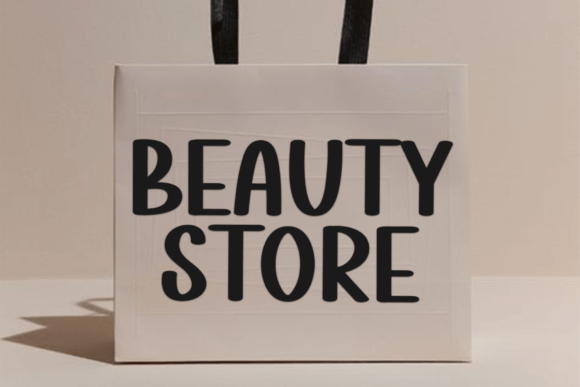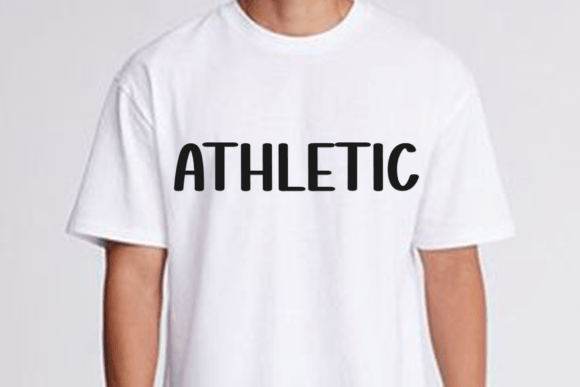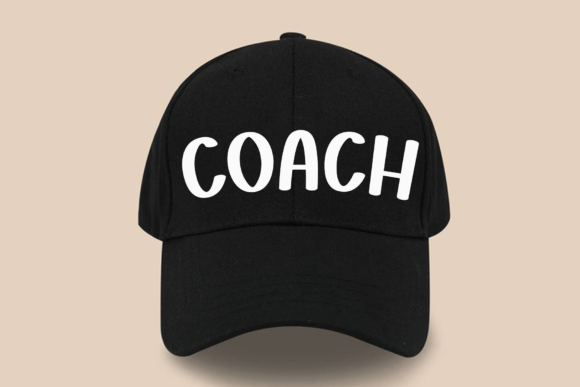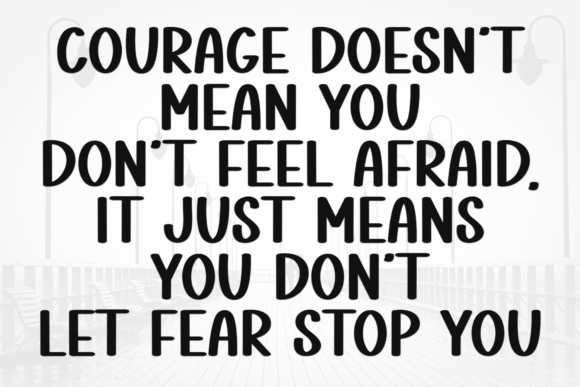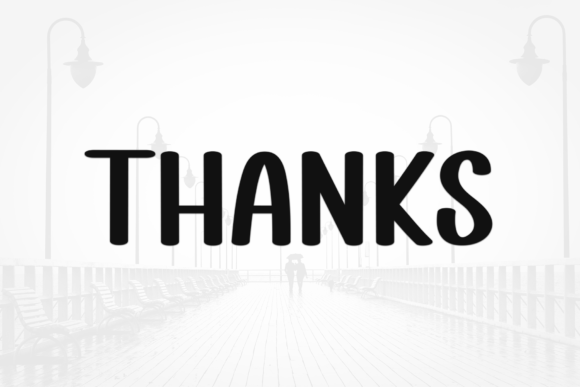
Introduction to Simple Charming Font
Do you remember the thrill of stumbling upon that perfect font that elevates your design project from good to great? It’s a feeling that never gets old, and for designers, it’s a game-changer. Today, we’re excited to share with you a treasure that’s sure to become a staple in your design arsenal: the Simple Charming Font.
This charming display font exudes freshness and casual elegance, making it an ideal choice for a wide range of creative projects. From branding and invitations to social media graphics, Simple Charming Font adds a touch of warmth and personality that’s hard to resist. Whether you’re a seasoned designer or just starting out, this high-quality font is a valuable addition to your design resource library.
Imagine having a go-to font that’s both stylish and versatile, perfect for any design project that requires a little extra charm. With its fluid strokes and organic lines, Simple Charming Font is sure to impress, and the best part? You can download it for free with a transparent background, making it easy to integrate into your next creative project.
Key Features of Simple Charming Font
- Unique, hand-drawn style with a transparent background, perfect for designers looking for a distinctive look.
- Simple Charming Font is a versatile design resource that can be used for a variety of creative projects, from logos and branding to typography and graphics.
- Perfect for designers who value unique, high-quality design resources and want to add a touch of elegance to their creative projects.
Honest Review: Simple Charming Font
I recently had the chance to work with the Simple Charming Font, and I must say it’s been a delight. This free download has quickly become one of my go-to design resources for creative projects.
- ✨ High-quality glyphs that maintain their clarity even at larger font sizes
- ✨ The transparent background makes it easy to integrate with any design
- ✨ The Simple Charming Font is highly versatile and suitable for a wide range of creative projects
- ⚠️ The font family is relatively small, with only a few styles to choose from
- ⚠️ Some users may find the font’s design a bit too simple, lacking in personality
Overall, I’m impressed with the Simple Charming Font. While it may not be the most extensive design resource, it’s certainly a high-quality addition to any designer’s toolkit. I’d recommend it to anyone looking for a clean, elegant font for their next creative project.
The Simple Charming Font is ideal for various creative projects, including wedding invitations, birthday cards, and social media graphics. Its elegant and sophisticated design makes it perfect for formal events and corporate branding. With a transparent background, you can easily overlay the font on any image or design element, creating a unique and eye-catching effect.